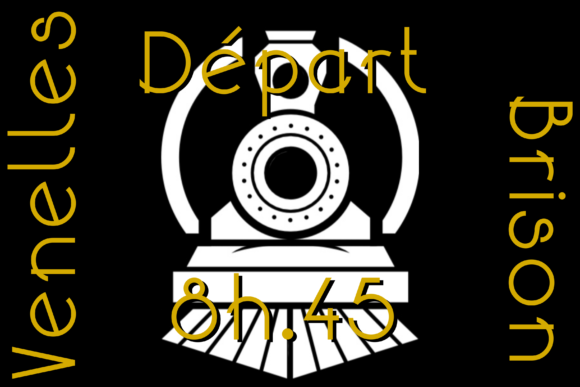
Unleash the power of expression with Matheva, the modern and captivating display font that will ignite your creative vision. Designed by the skilled hands of appligraphe, Matheva is a symphony of clean lines and fluid curves, embodying the essence of contemporary elegance.
With its versatility and adaptability, Matheva effortlessly complements a diverse range of projects, from striking poster headings that demand attention to captivating logos that leave a lasting impression. Its distinct character adds a touch of sophistication to any design, transforming ordinary words into mesmerizing visual masterpieces.
Explore the endless possibilities of Matheva and elevate your creations to new heights. Let your imagination soar as you craft stunning posters that command attention from across the room, leaving your audience mesmerized. Create logos that exude professionalism and leave a lasting mark on the minds of your clients.
Matheva is not just a font; it's a gateway to a world of creative possibilities. Its modern aesthetic and limitless adaptability make it the perfect choice for designers seeking to make a statement. Say goodbye to mundane fonts and embrace the boundless creativity that Matheva offers.
Join the ranks of design visionaries who have discovered the transformative power of Matheva. Let your creativity shine through as you craft captivating designs that leave an unforgettable impact. Experience the thrill of turning ordinary projects into extraordinary masterpieces with Matheva, the display font that sets your imagination free.